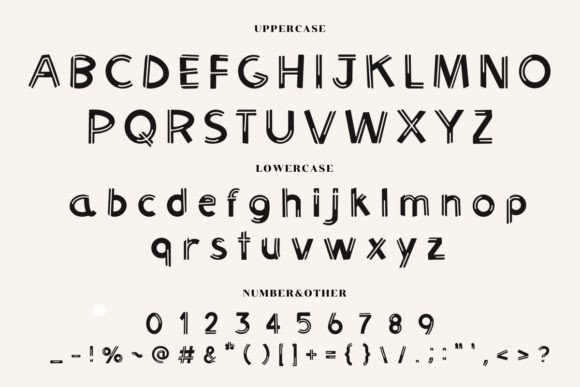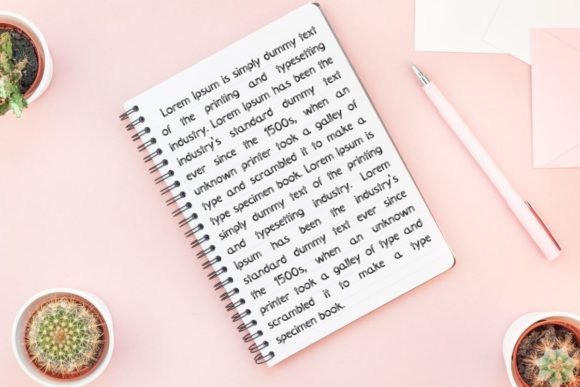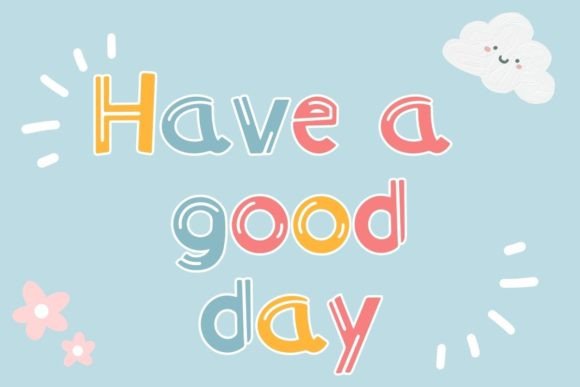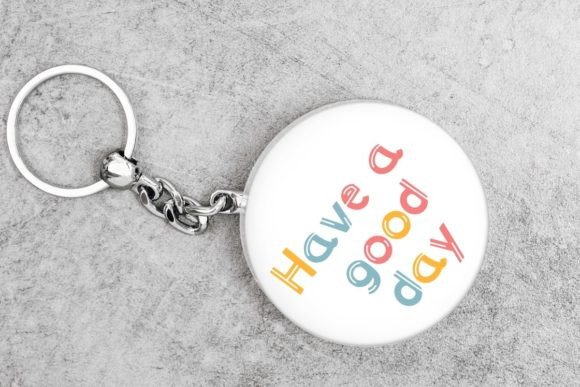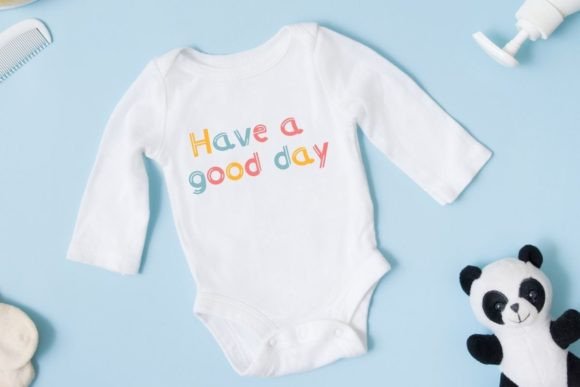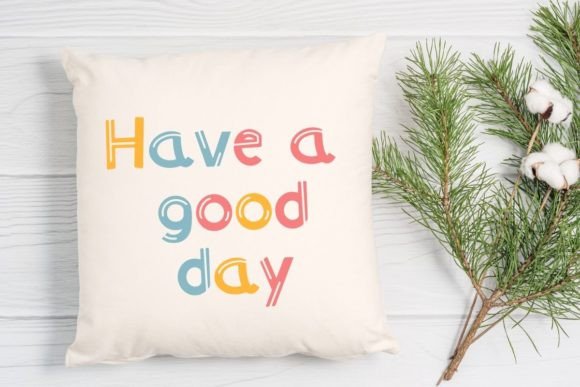
Introducing Give Always Font: The Ultimate Cute Display Font for Fun Designs
Are you a designer or crafter looking for a font that can add a touch of cuteness and fun to your projects? Look no further than Give Always Font! This adorable display font is perfect for creating groovy and fun designs that are sure to capture the attention of your audience. In this article, we’ll take a closer look at Give Always Font and explore its features, uses, and benefits.
What is Give Always Font?
Give Always Font is a special display font designed specifically for birthday themes and other fun designs. Its cute and playful vibe makes it an ideal choice for designers and crafters who want to create eye-catching and engaging projects. Whether you’re working on a birthday invitation, kids’ design, summer design, t-shirt design, or crafting project, Give Always Font is the perfect choice.
Key Features of Give Always Font
- Cute and Playful Design: Give Always Font features a unique and adorable design that’s sure to add a touch of fun to your projects.
- Groovy and Fun Vibes: This font is perfect for creating designs that are playful, energetic, and youthful.
- Multipurpose Use: Give Always Font can be used for a wide range of projects, including birthday designs, kids’ designs, summer designs, t-shirt designs, crafting, stickers, sublimation, and more.
- Easily Readable: Despite its playful design, Give Always Font is easily readable, making it perfect for both digital and print projects.
Uses of Give Always Font
Give Always Font is a versatile font that can be used for a wide range of projects, including:
- Birthday Designs: Create adorable birthday invitations, cards, and posters with Give Always Font.
- Kids’ Designs: Use Give Always Font to create fun and engaging designs for kids, such as stickers, coloring pages, and activity sheets.
- Summer Designs: Add a touch of summer fun to your designs with Give Always Font, perfect for creating beach-themed posters, flyers, and social media graphics.
- T-Shirt Designs: Create eye-catching t-shirt designs with Give Always Font, perfect for birthday parties, summer camps, or kids’ events.
- Crafting and DIY Projects: Use Give Always Font to add a personal touch to your crafting and DIY projects, such as stickers, labels, and signs.
Benefits of Using Give Always Font
By using Give Always Font, designers and crafters can enjoy several benefits, including:
- Unique and Creative Designs: Give Always Font allows designers to create unique and creative designs that stand out from the crowd.
- Time-Saving: With Give Always Font, designers can save time and effort in creating designs from scratch.
- Consistency: Use Give Always Font to maintain consistency across your designs and projects.
- Fun and Engaging: Give Always Font adds a touch of fun and engagement to your designs, perfect for capturing the attention of your audience.
Give Always Font is a cute and playful display font that’s perfect for designers and crafters looking to add a touch of fun and cuteness to their projects. With its groovy and fun vibes, multipurpose use, and easily readable design, Give Always Font is an ideal choice for a wide range of projects. Whether you’re working on birthday designs, kids’ designs, summer designs, or crafting projects, Give Always Font is sure to bring your designs to life!